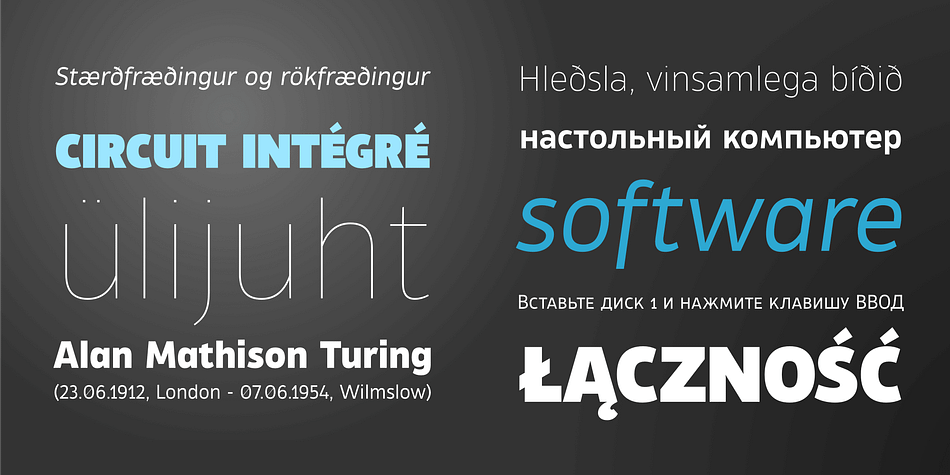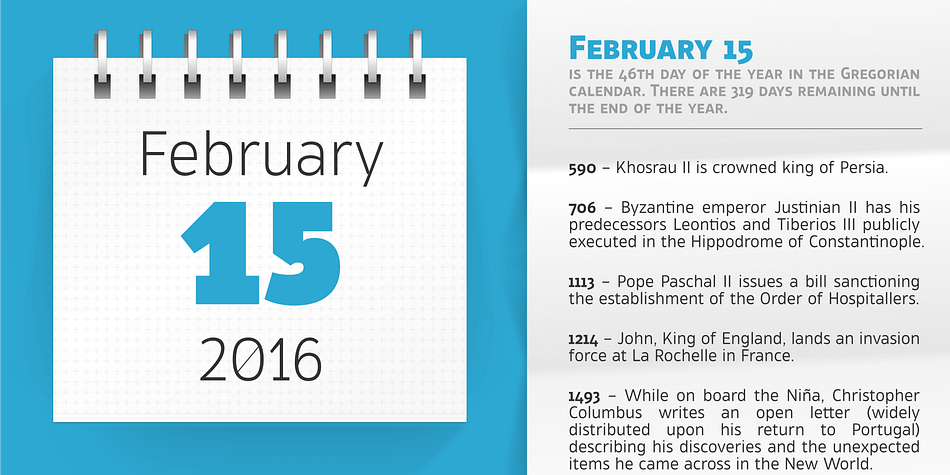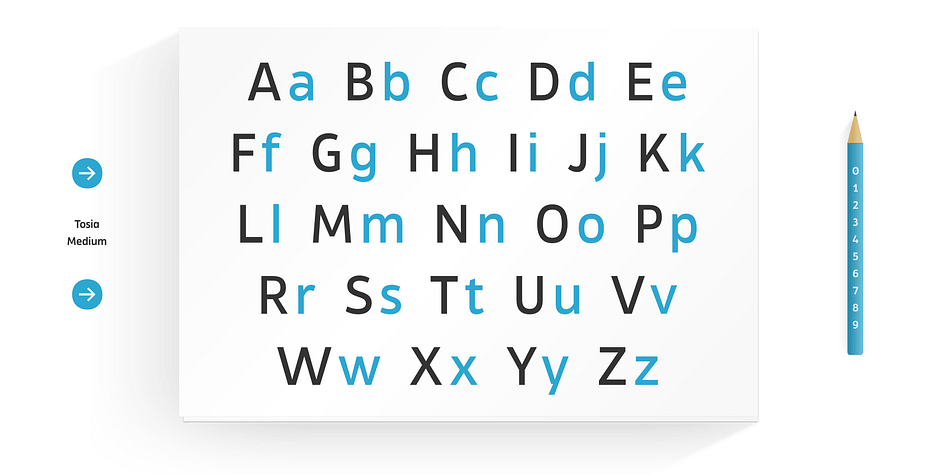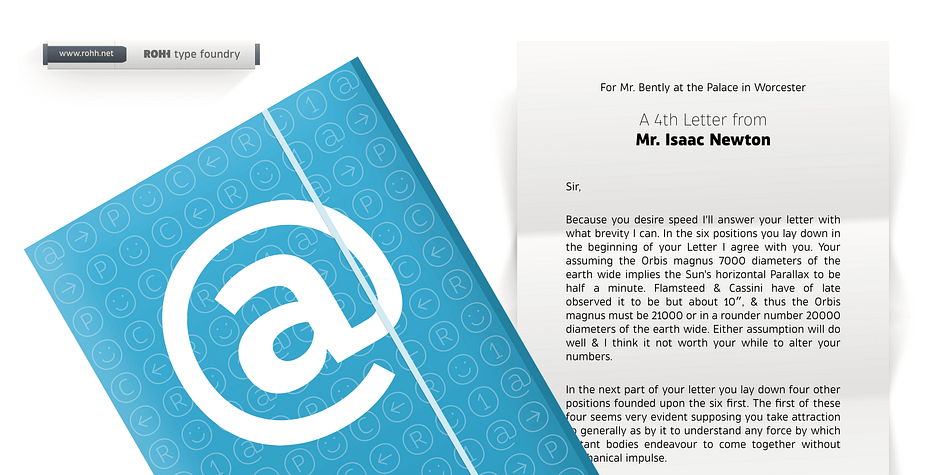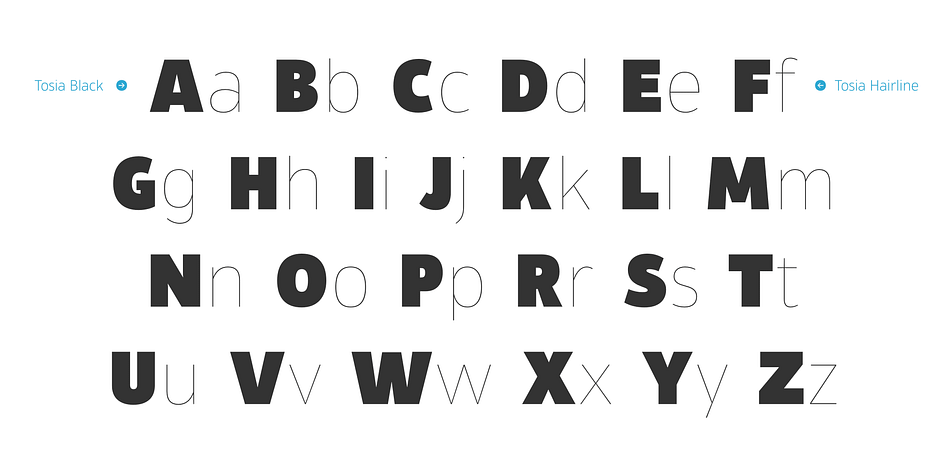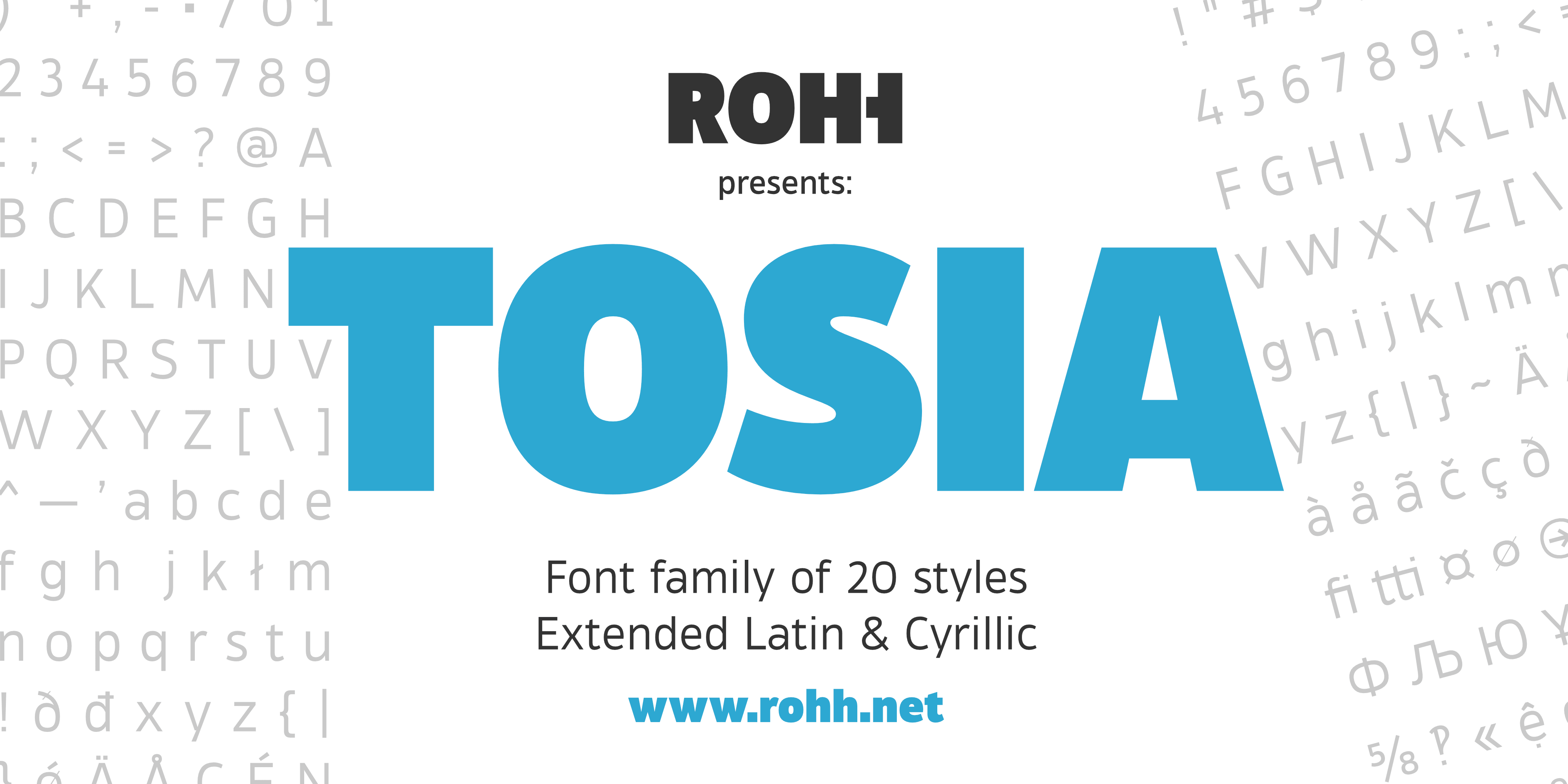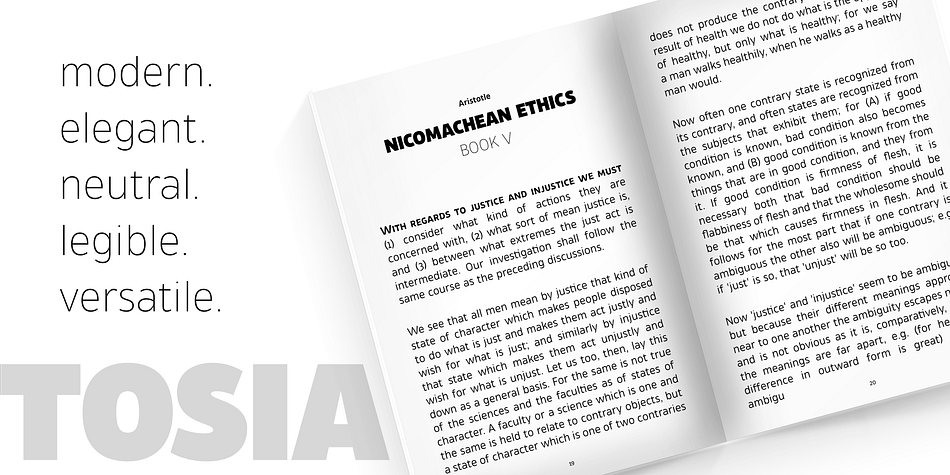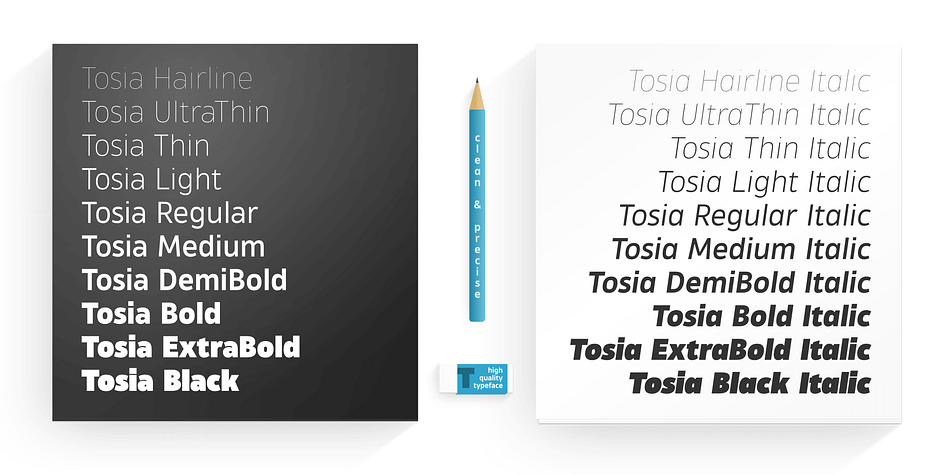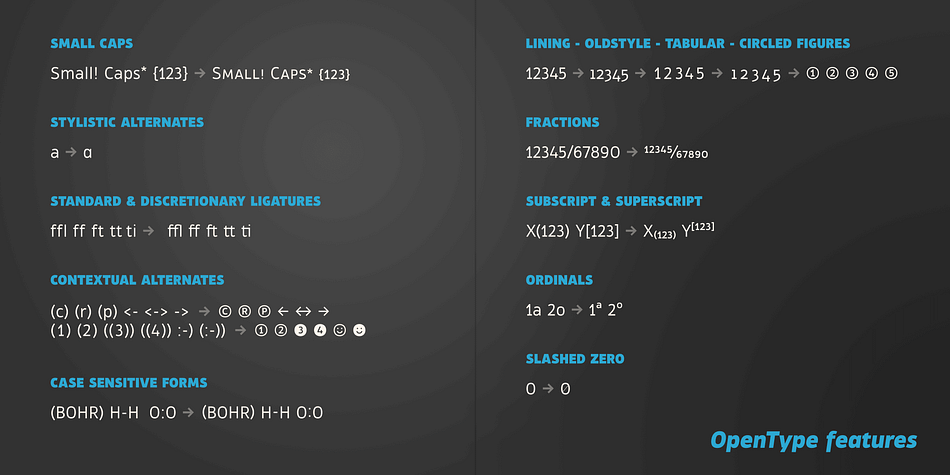
Designed by Roch Modrzejewski, Tosia is a sans serif font family. This typeface has twenty styles and was published by ROHH.
Tosia is a modern, clean, elegant and versatile font family designed with neutrality, beautiful proportion and excellent legibility in mind.
This professional, contemporary sans serif has slightly condensed dimensions, which make it a great typeface for situations, where space saving is needed.
Tosia’s broad variety of weights makes it suitable for headlines of all sizes, as well as for long and short paragraphs of text. It is excellent for on-screen use, for web applications, user interfaces, as well as for all kind of print purposes, like branding, packaging and editorial design.
Tosia consists of 20 fonts - 10 weights and their corresponding italics. It has extended language support including Dyrillic and true italics, as well as broad number of OpenType features, such as small caps, case sensitive forms, ligatures, stylistic alternates, contextual alternates, lining, oldstyle, tabular, small cap and circled figures, slashed zero, fractions, superscript and subscript, ordinals, currencies and symbols.